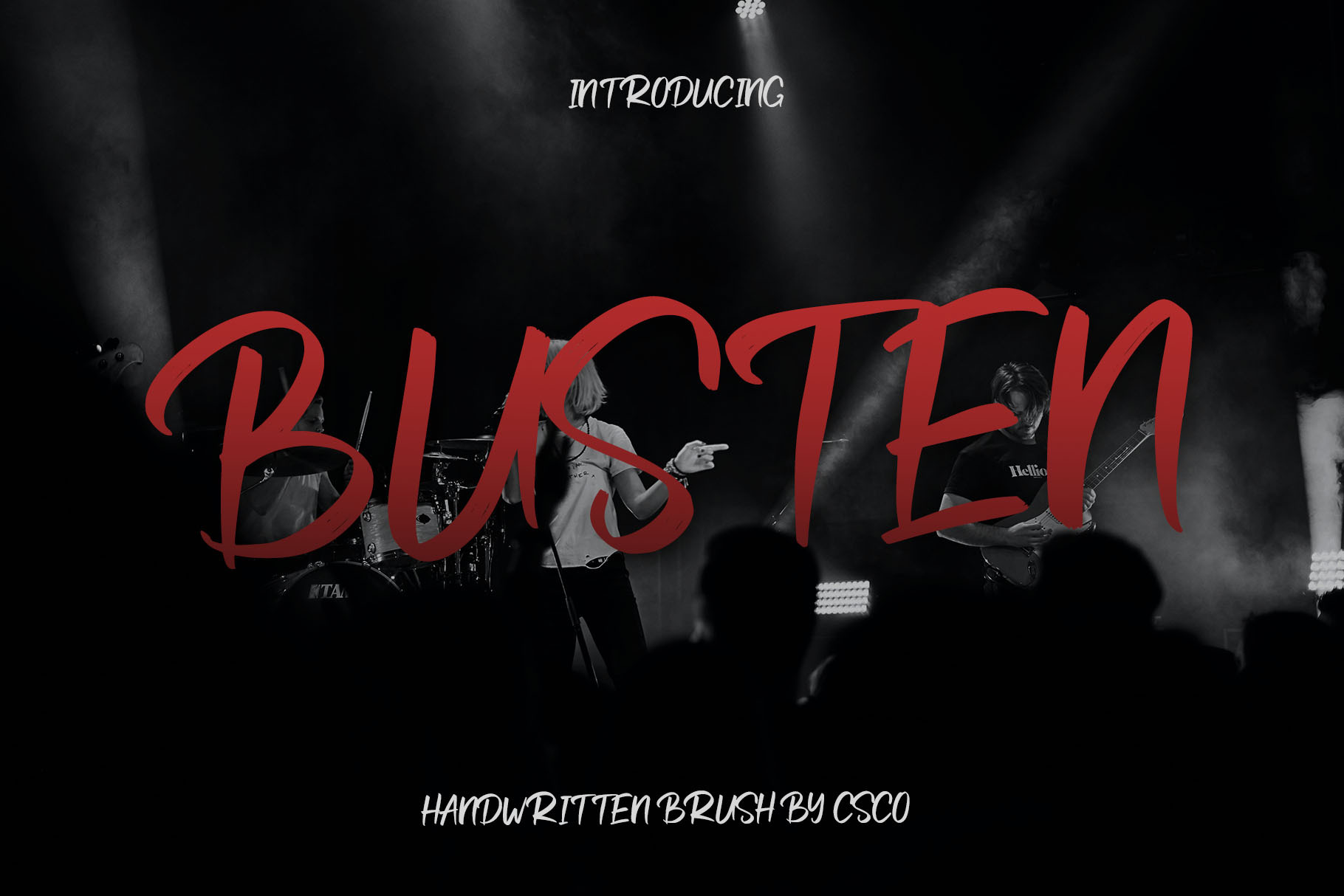
Busten - Handwritten Brush Font
Introducing New Font : Busten - Handwritten Brush Font
Busten - Handwritten Brush Font is an handwritten script font based on the expression of real handwriting. Busten - Handwritten Brush Font will work perfectly for fashion, e-commerce brands, trend blogs, wedding boutiques or any business that wants to appear upscale and chic.
Busten - Handwritten Brush Font also Suitable for Logo, greeting cards, quotes, posters, branding, name card, stationary, design title, blog header, art quote, typography, art, modern envelope lettering or book design, happening style like handdrawn design or watercolor design theme, craft design, any DIY project, book title, or any purpose to make your art/design project look pretty and trendy.